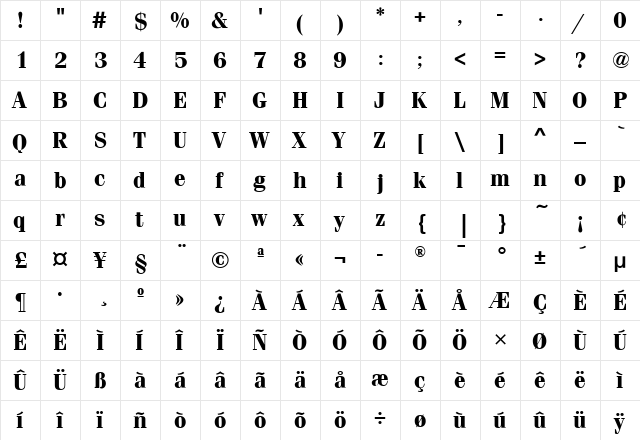
FeniceLightITC Bold
Design Context for FeniceLightITC Typeface
FeniceLightITC offers clean, dependable letterforms without strong stylistic allegiance, making it a practical choice for designers who need flexibility. The heavy weight commands attention and anchors typographic hierarchies.